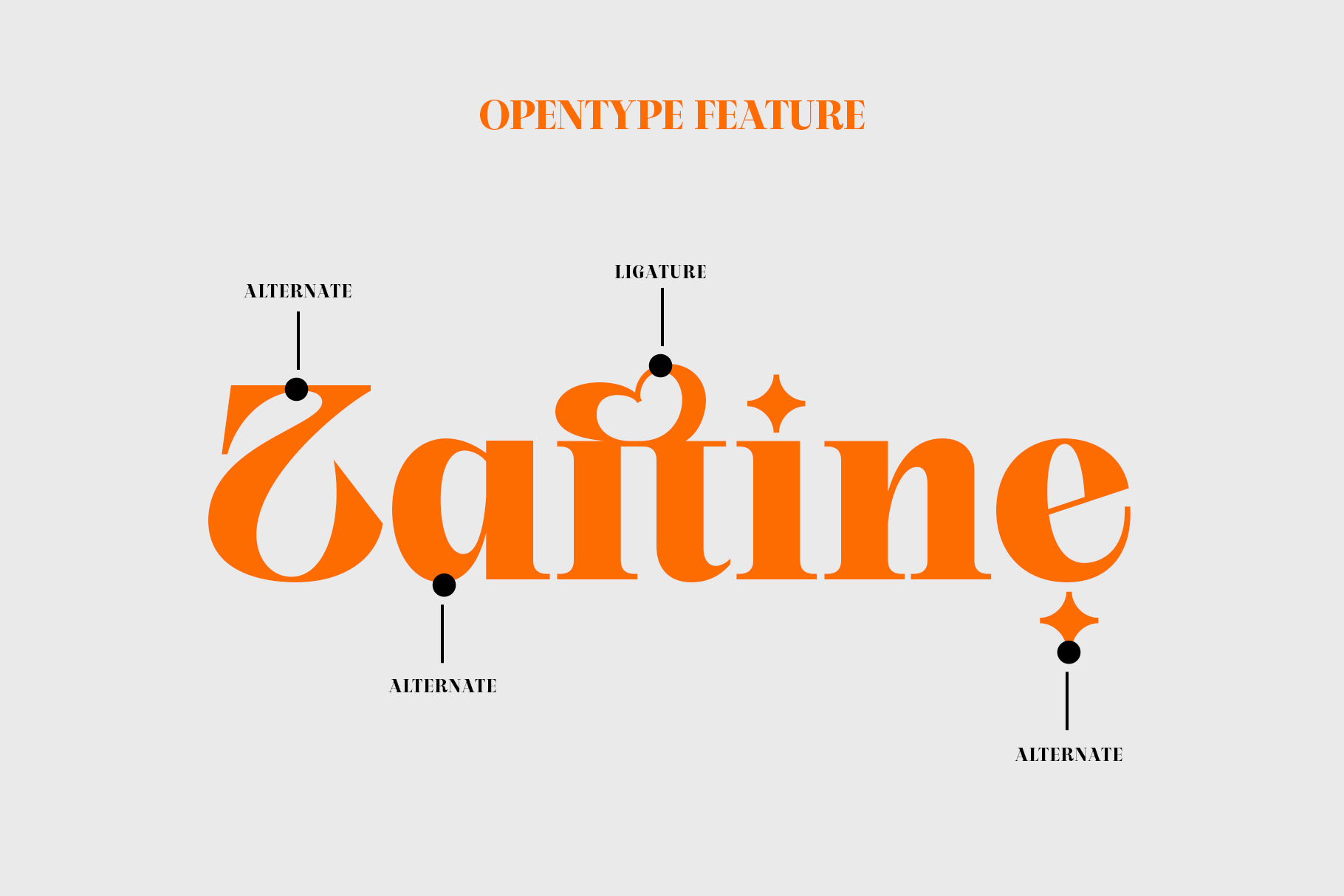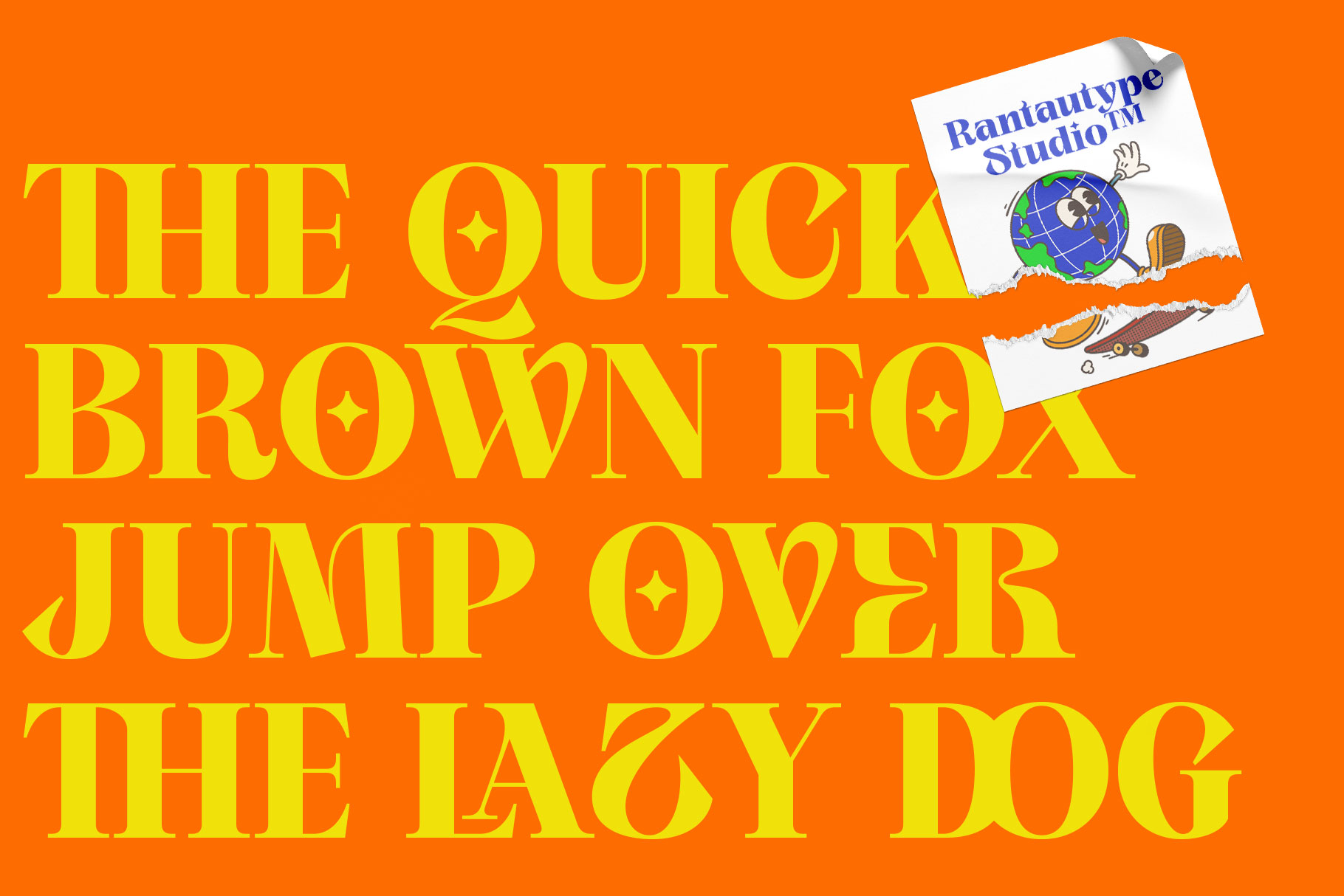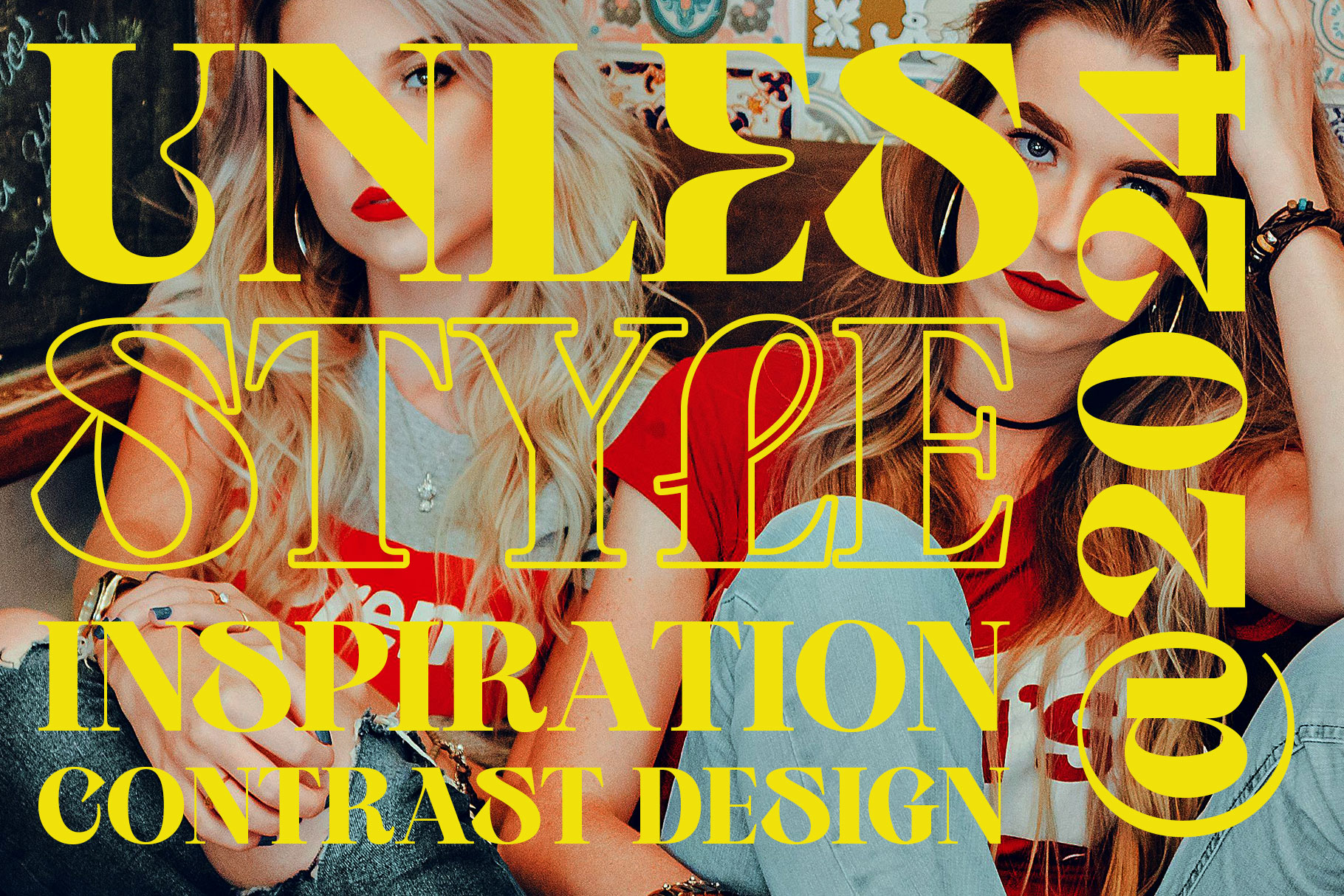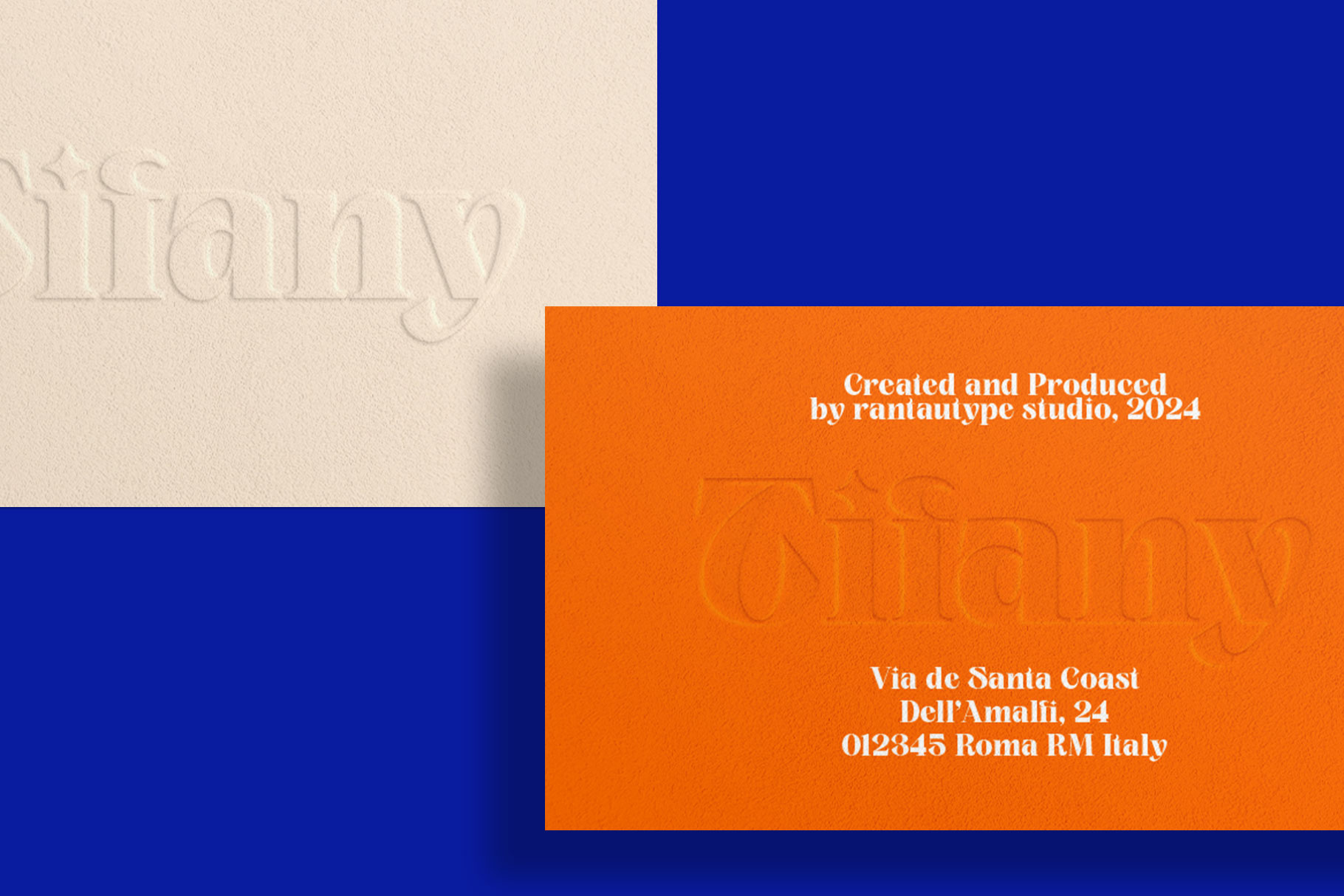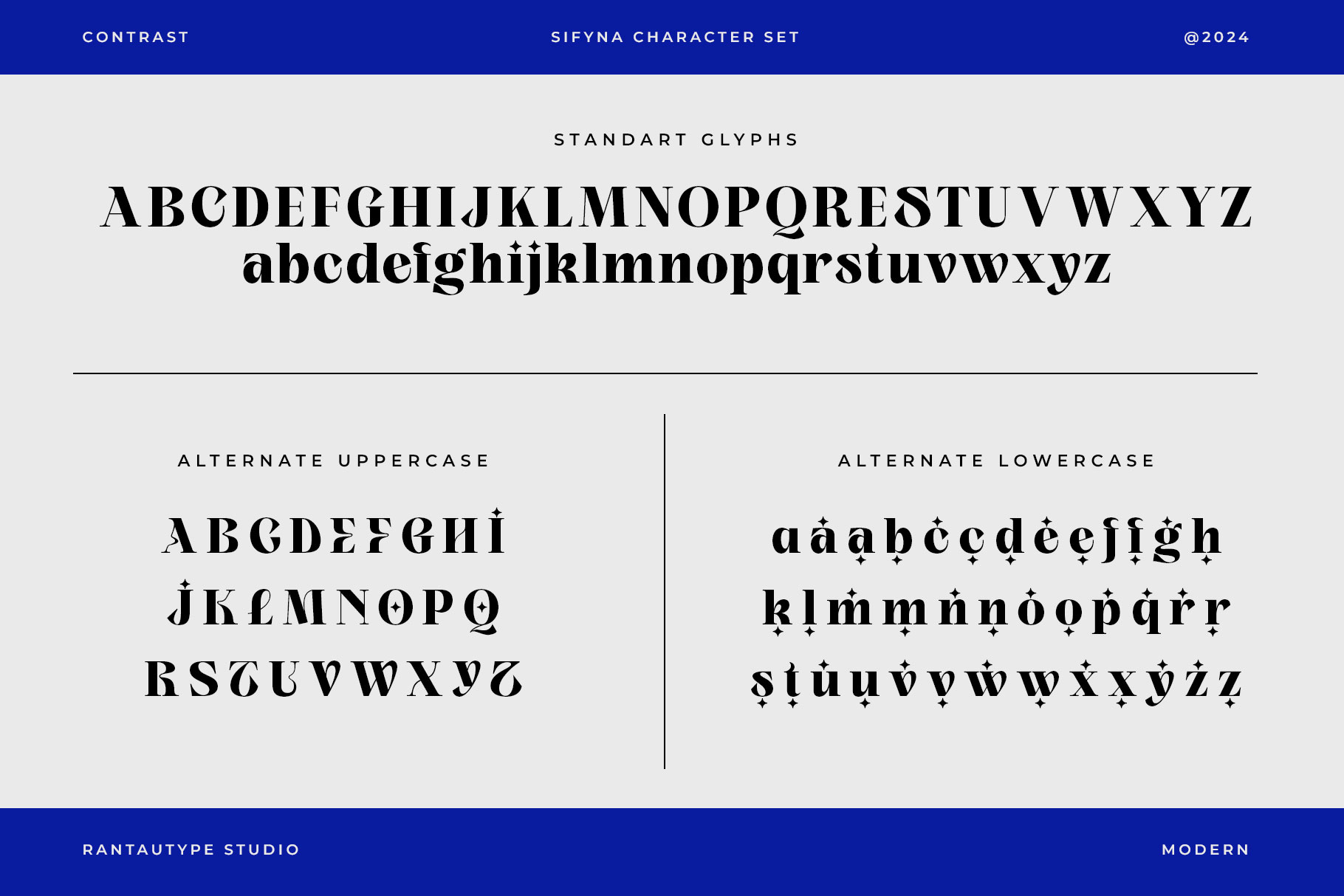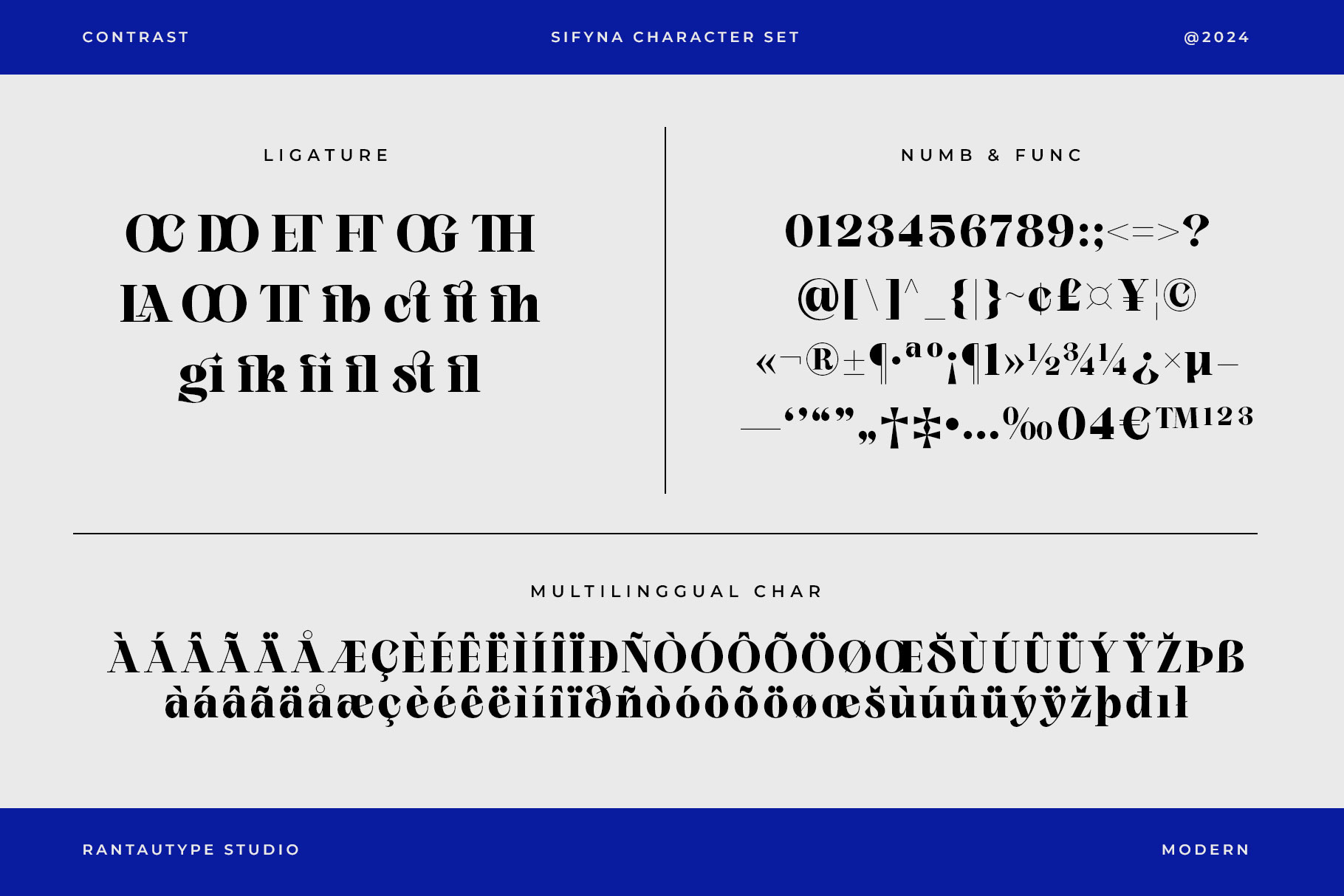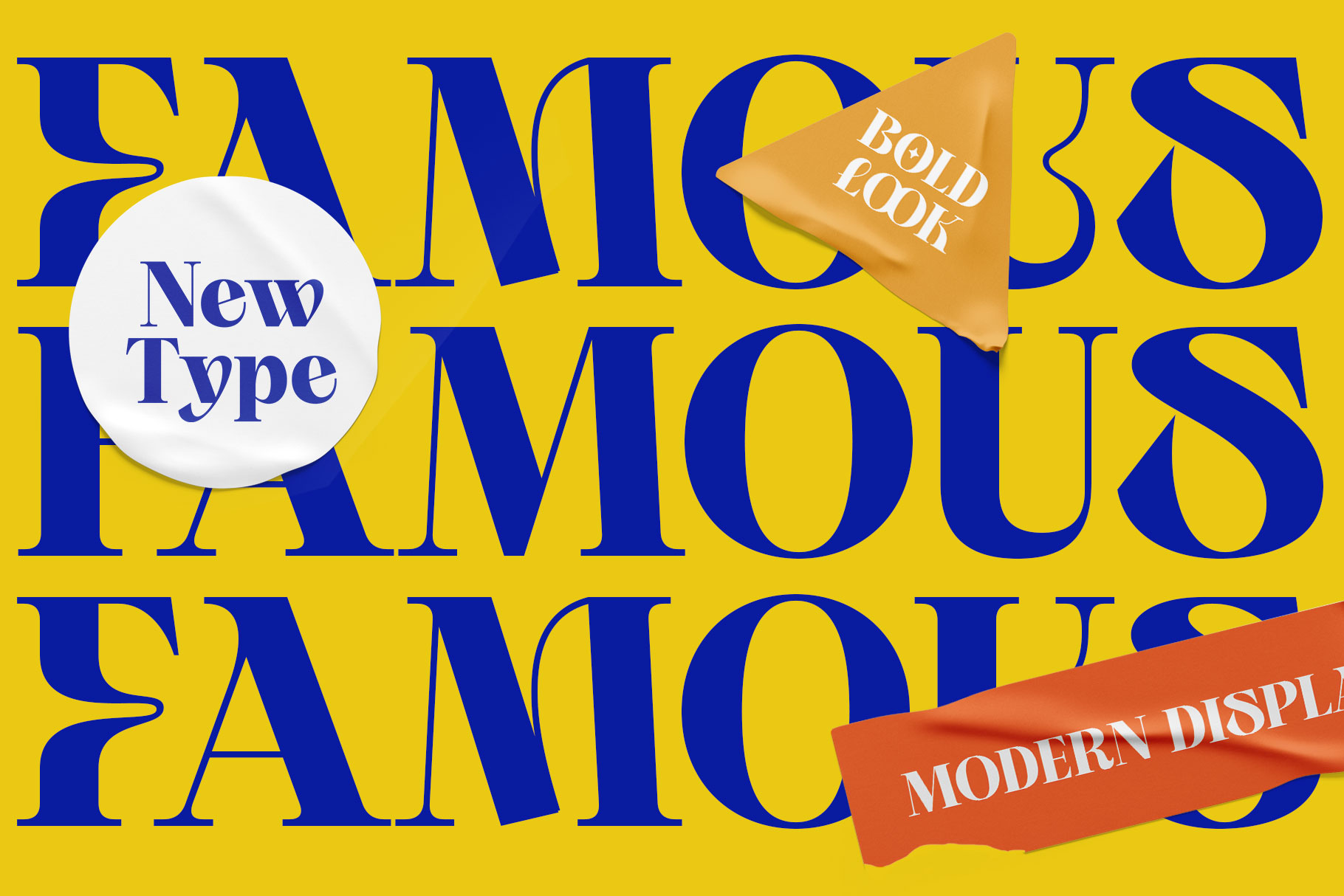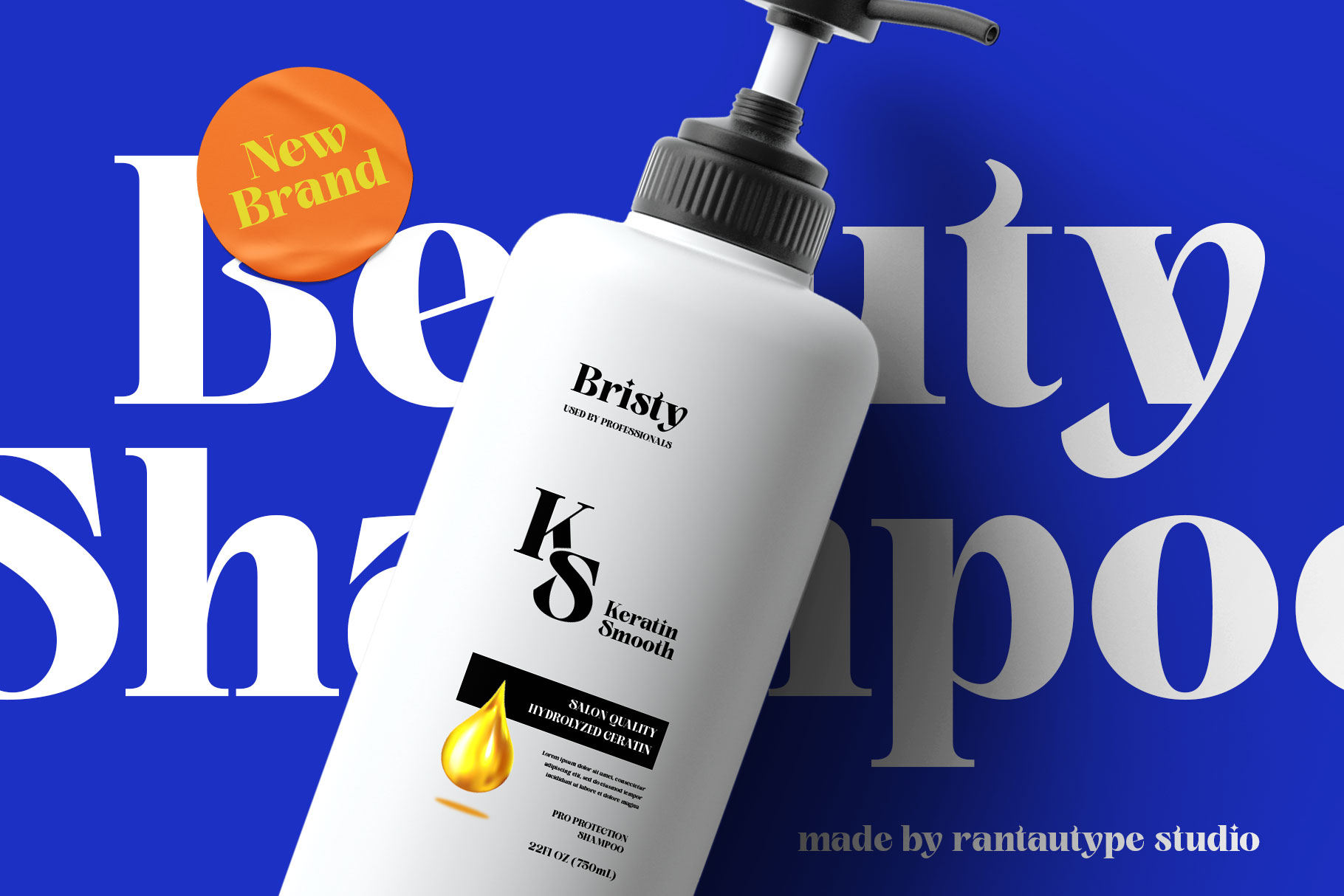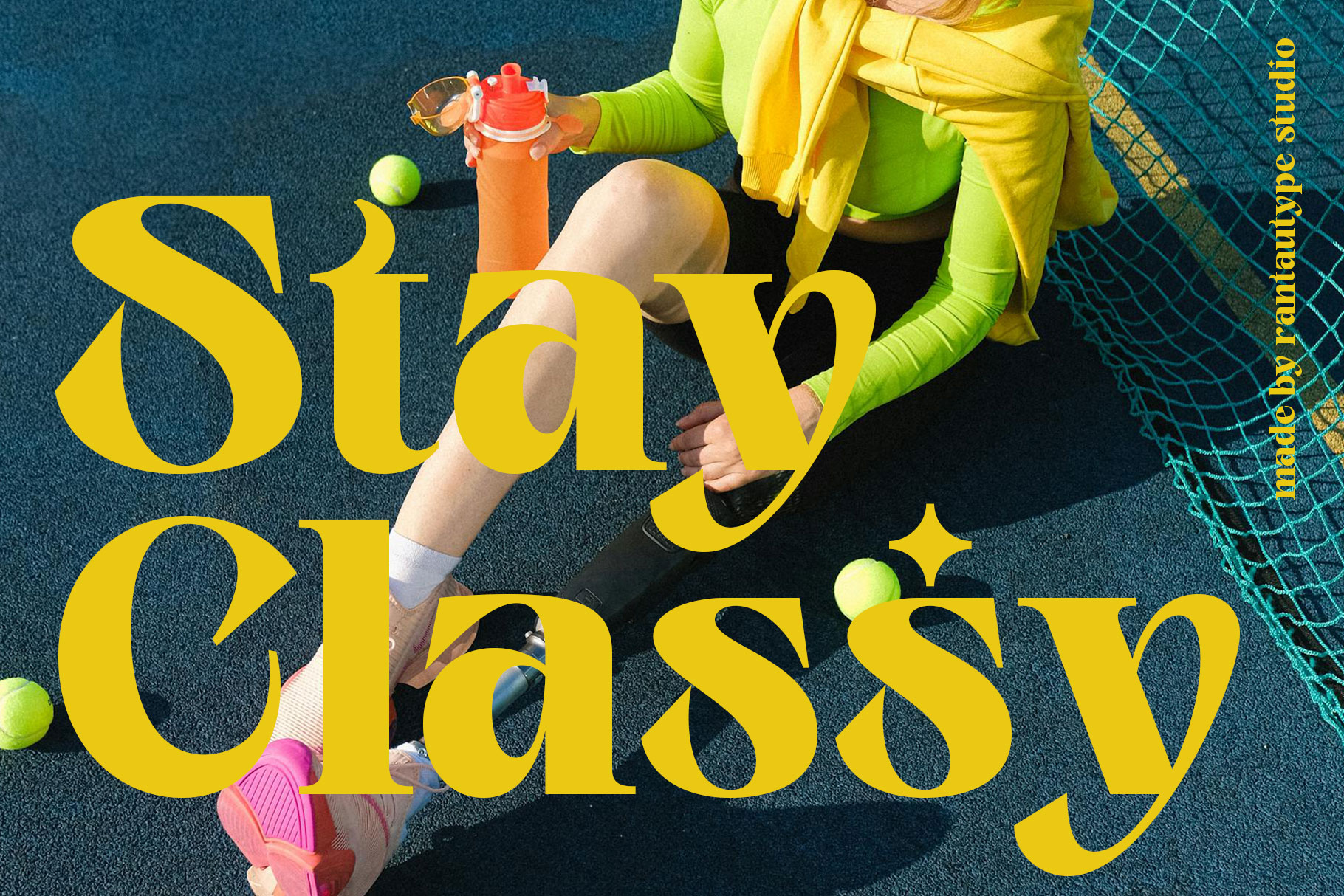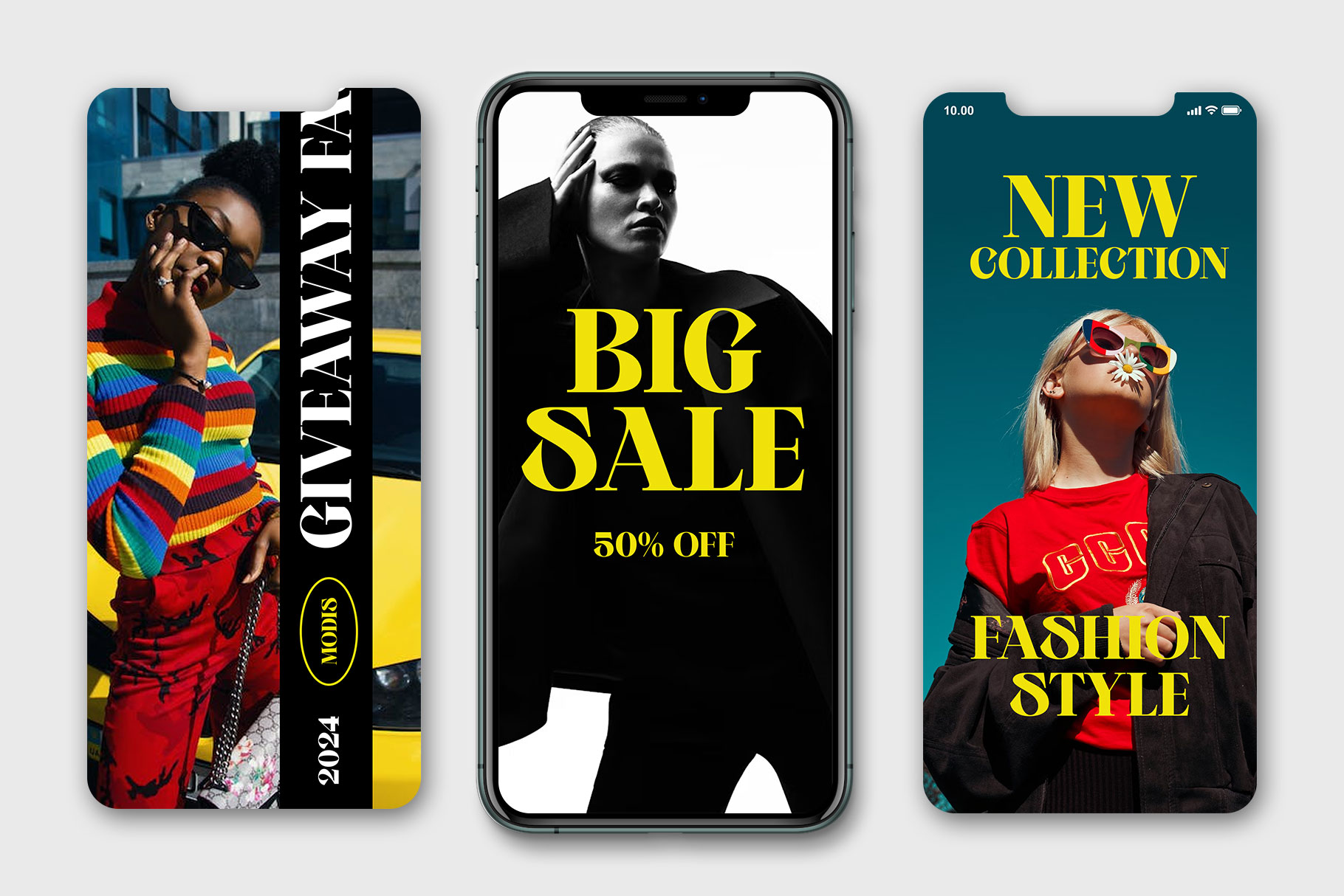
Sifyna is modern serif typeface with contrast visual design shape. Sifyna come with bold trend typeface to help your make attractive design project. Sifyna have two style in reguler and outline also included alternate, ligature and mulitlingual character.
Sifyna is a perfectly choice for any creative endeavor, chic, lifestyle design such as logos, advertisements, watermark on photography, stationery, branding project, display and magazine, invitation, corporate brand, product design, label, business project and many other project with elegant touch.